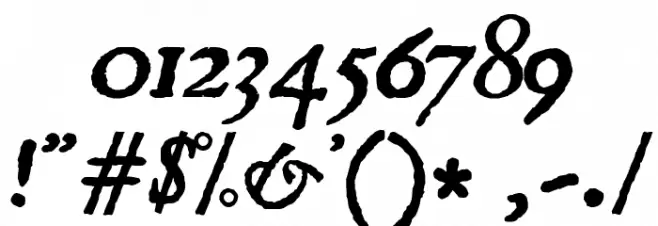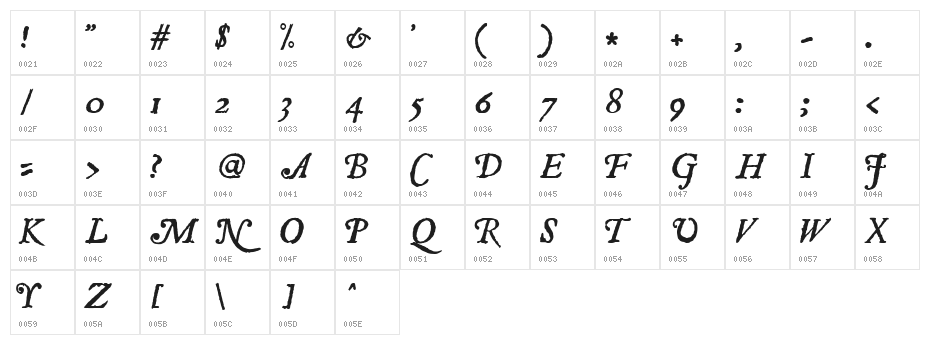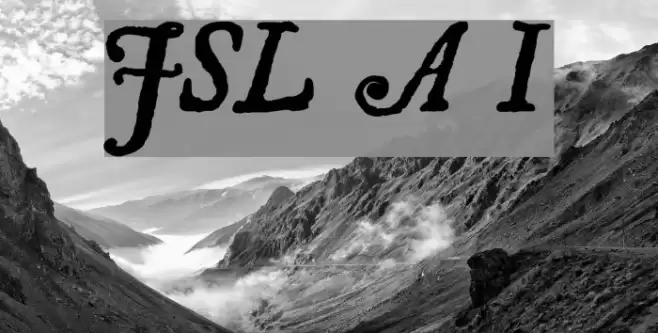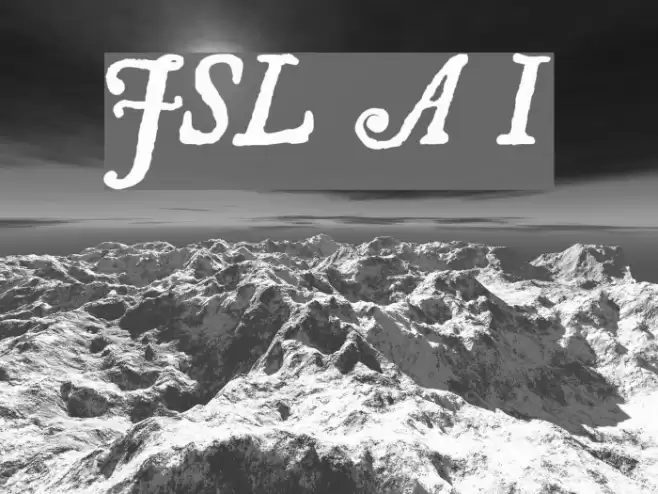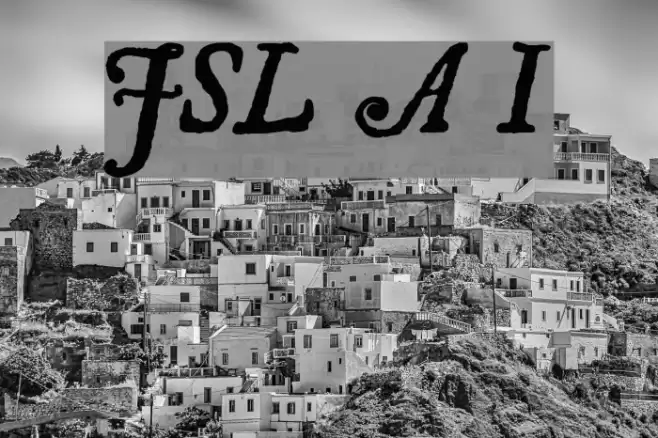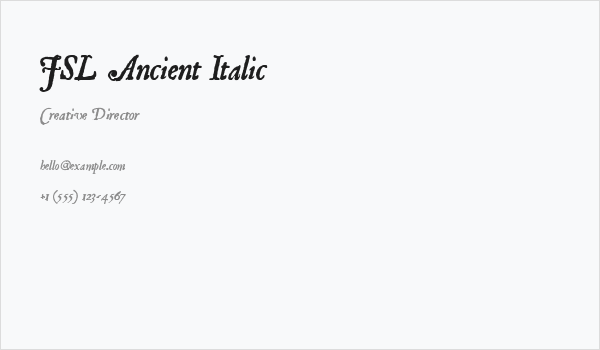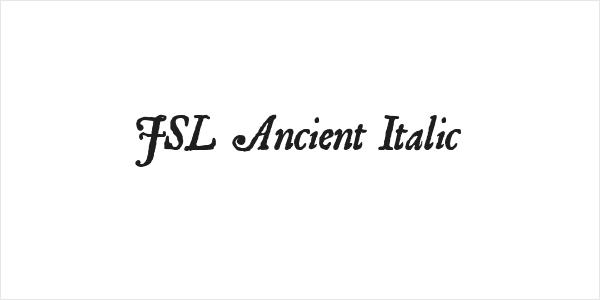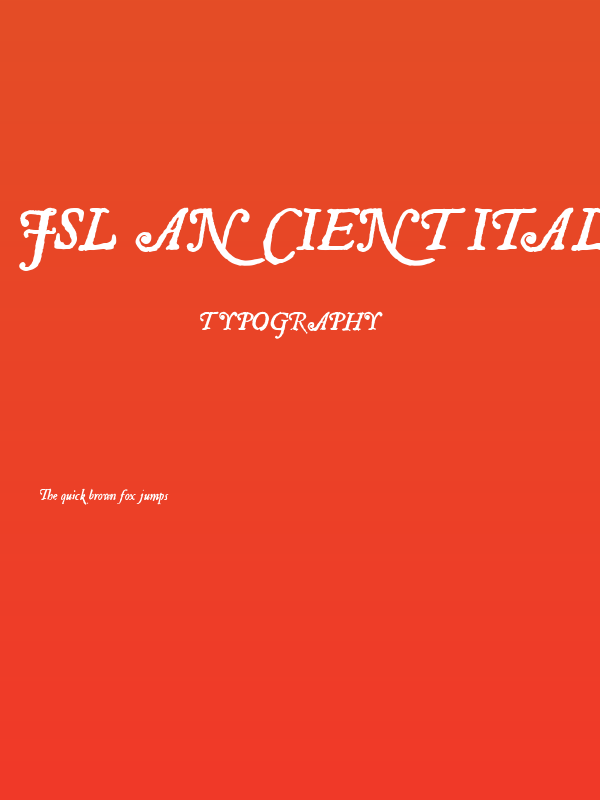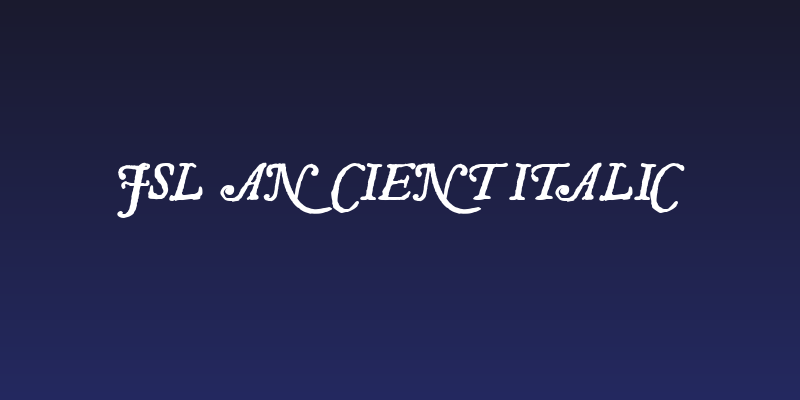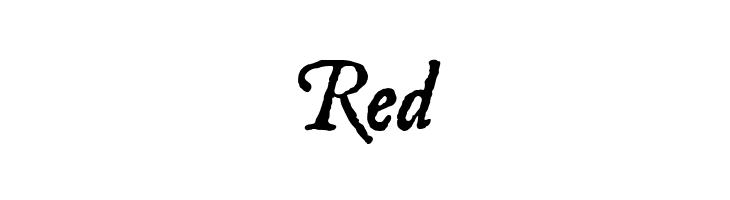
JSL Ancient Italic Font
JSL Ancient Italic Description
This font exhibits a distinctive italic style with a historical flair, reminiscent of ancient scripts. The uppercase letters are elegantly slanted with a consistent stroke width, while the lowercase letters maintain a similar style with slightly more variation in stroke thickness. The numerals are bold and clear, matching the overall aesthetic. Special characters are crafted with attention to detail, enhancing the font's decorative appeal. The font's unique character is suitable for projects that require a touch of antiquity and elegance.
| Use Case | Logos, Decorative text, Themed projects |
| Proposed Projects | Ideal for historical documents, themed invitations, book covers, and branding that requires a classic touch. |